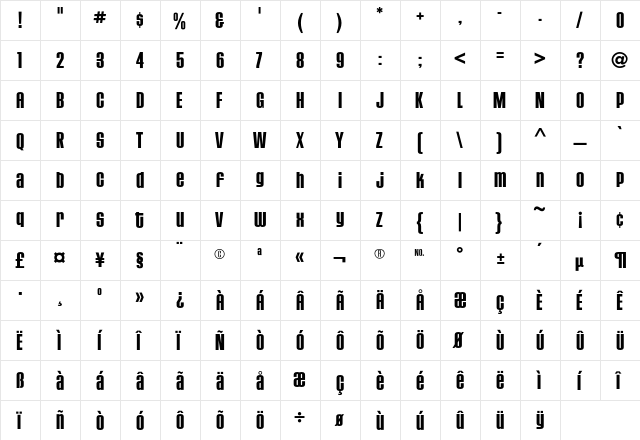
HouseGothic BoldThree
Design Context for HouseGothic Typeface
HouseGothic has the quiet confidence of well-executed sans-serif typography: versatile, unobtrusive, and dependable at any size. The heavy weight commands attention and anchors typographic hierarchies.
A strong choice for UI design, app interfaces, bold signage, and corporate brand systems.
Font Pairing: Use HouseGothic for headlines alongside a lighter-weight sans or serif for body copy to establish clear visual hierarchy.
Pro Tip: Pair HouseGothic with a display or serif font for headlines — its neutral character makes it an excellent supporting player in complex typographic systems.